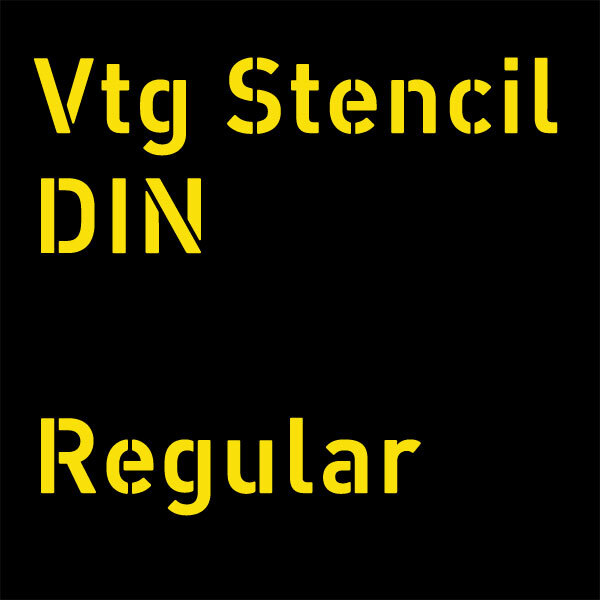
Vtg Stencil DIN - Regular | font
Vtg Stencil Din - Regular is part of the official German standard DIN 1451-1:2018-12 as a reference for stencil fonts designed according to DIN 1451-2.